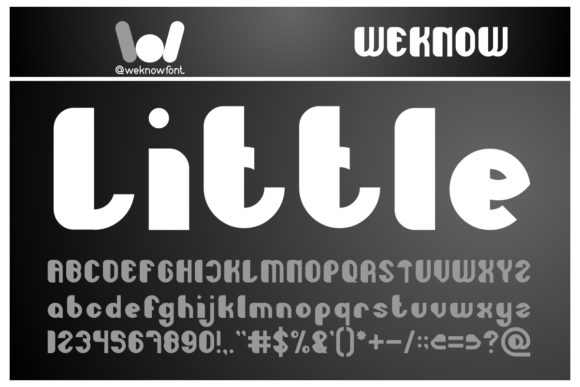
Little Atom Font: A Powerful and Bold Display Font for Your Designs
In the world of typography, a font can make or break a design. A well-chosen font can elevate your project and make it stand out from the crowd, while a poorly chosen one can have the opposite effect. If you’re looking for a font that can add a touch of techno flair to your designs, look no further than Little Atom Font. In this article, we’ll take a closer look at Little Atom, a neat and thick lettered display font that’s perfect for making a statement.
What is Little Atom Font?
Little Atom Font is a display font designed to make a bold statement. With its thick, techno-inspired letters, this font is perfect for headlines, titles, and any other design element where you want to grab attention. The font is characterized by its clean lines, geometric shapes, and industrial feel, making it ideal for designs that require a strong, modern look.
Key Features of Little Atom Font
So, what makes Little Atom Font so special? Here are some of its key features:
- Thick and bold letters: Little Atom Font features thick, bold letters that are perfect for making a statement.
- Techno-inspired design: The font has a techno-inspired design, with clean lines and geometric shapes that give it an industrial feel.
- Clean and legible: Despite its bold design, Little Atom Font is clean and legible, making it easy to read even at small sizes.
- Versatile: Little Atom Font can be used for a wide range of designs, from posters and flyers to logos and branding.
Who is Little Atom Font for?
Little Atom Font is perfect for designers, artists, and anyone who wants to add a touch of techno flair to their designs. Here are some examples of who might benefit from using Little Atom Font:
- Graphic designers: Graphic designers who want to create bold, eye-catching designs will love Little Atom Font.
- Artists: Artists who want to add a touch of industrial chic to their work will appreciate Little Atom Font’s unique design.
- Branding and marketing professionals: Branding and marketing professionals who want to create a strong, modern brand identity will find Little Atom Font to be a valuable asset.
How to Use Little Atom Font
Using Little Atom Font is easy. Here are some tips for incorporating it into your designs:
- Use it for headlines: Little Atom Font is perfect for headlines and titles, where you want to grab attention and make a statement.
- Pair it with other fonts: Little Atom Font can be paired with other fonts to create a unique and interesting design.
- Experiment with colors: Little Atom Font looks great in bold, bright colors, so don’t be afraid to experiment and find the perfect color for your design.
Benefits of Using Little Atom Font
There are many benefits to using Little Atom Font in your designs. Here are some of the most significant advantages:
- Grabs attention: Little Atom Font is designed to grab attention and make a statement.
- Modern and industrial look: The font’s techno-inspired design gives it a modern and industrial look that’s perfect for designs that require a strong, edgy feel.
- Versatile: Little Atom Font can be used for a wide range of designs, from posters and flyers to logos and branding.
- Easily legible: Despite its bold design, Little Atom Font is clean and legible, making it easy to read even at small sizes.
Tips for Getting the Most Out of Little Atom Font
Here are some tips for getting the most out of Little Atom Font:
- Experiment with different sizes: Little Atom Font looks great at a variety of sizes, so experiment to find the perfect size for your design.
- Play with colors: Little Atom Font looks great in bold, bright colors, so don’t be afraid to experiment and find the perfect color for your design.
- Use it sparingly: Because Little Atom Font is so bold, it’s best to use it sparingly to avoid overwhelming the viewer.
Little Atom Font is a powerful and bold display font that’s perfect for making a statement. With its thick, techno-inspired letters, this font is ideal for designs that require a strong, modern look. Whether you’re a graphic designer, artist, or branding professional, Little Atom Font is a valuable asset to have in your design toolkit.
- What is Little Atom Font? Little Atom Font is a display font designed to make a bold statement.
- What is Little Atom Font used for? Little Atom Font is perfect for headlines, titles, and any other design element where you want to grab attention.